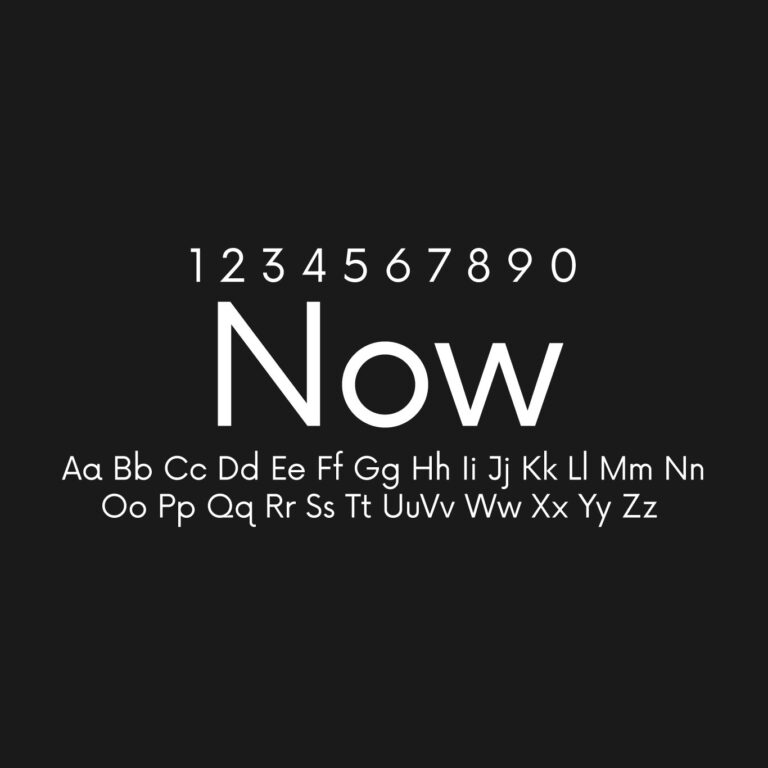
Now is a modern sans-serif typeface with a simple, clean and geometric appearance. Its minimal structure and practical weight range make it useful for logos, headlines, posters, packaging, editorial layouts, website hero sections, presentations, social media graphics and branding projects that need a clear contemporary look.
Font Name: Now
Font Type: Sans Serif
Category: Modern Sans Serif / Geometric Sans Serif
Visual Style: Clean, modern, minimal, geometric, readable
Best For: Logos, headlines, posters, branding, packaging, websites, presentations and social media graphics